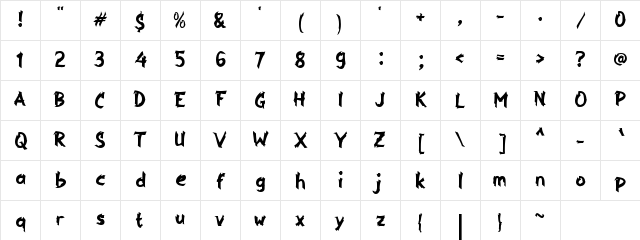
Complete a Api Nyala Regular glyph index. Displaying only characters natively supported by a Api Nyala Regular font.
a Api Nyala is a composed and adaptable typeface that performs quietly and consistently across a wide range of design contexts.